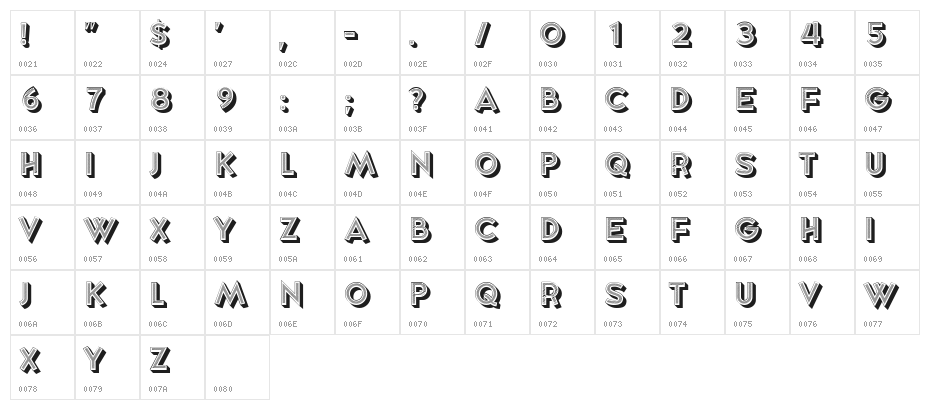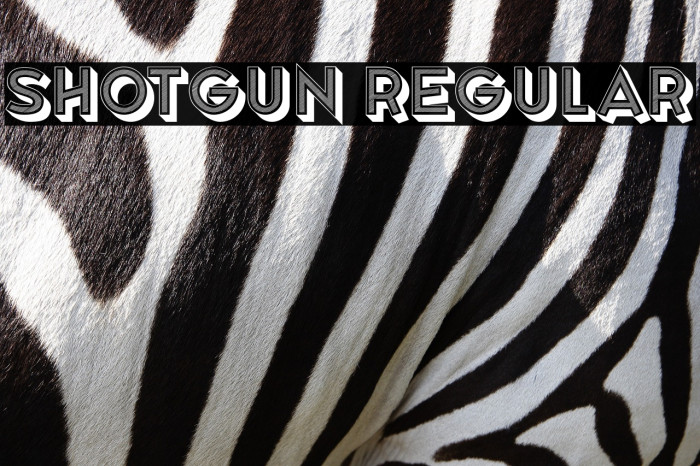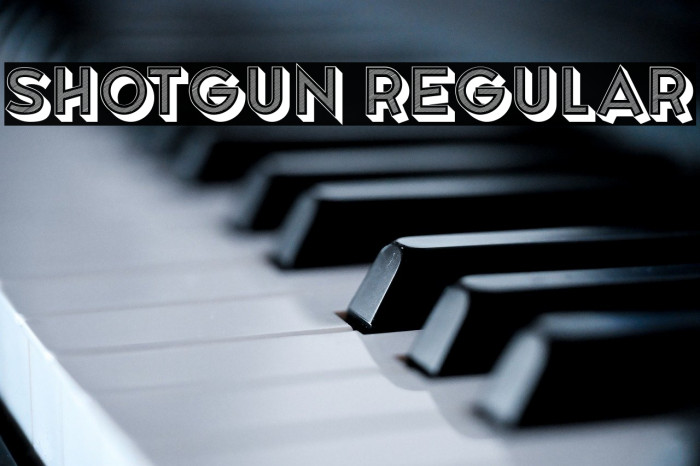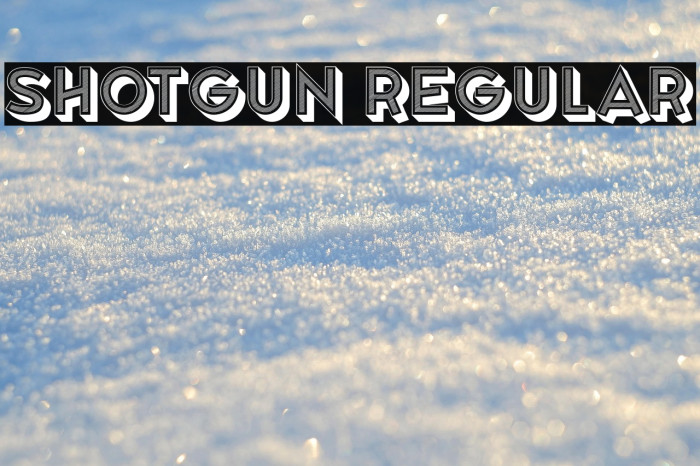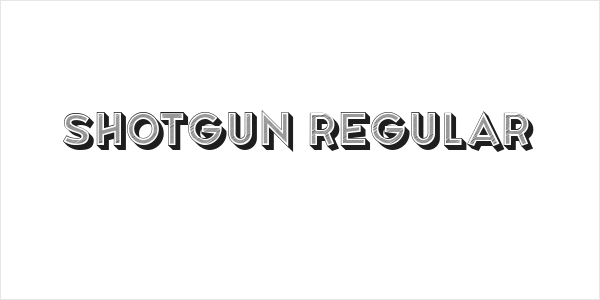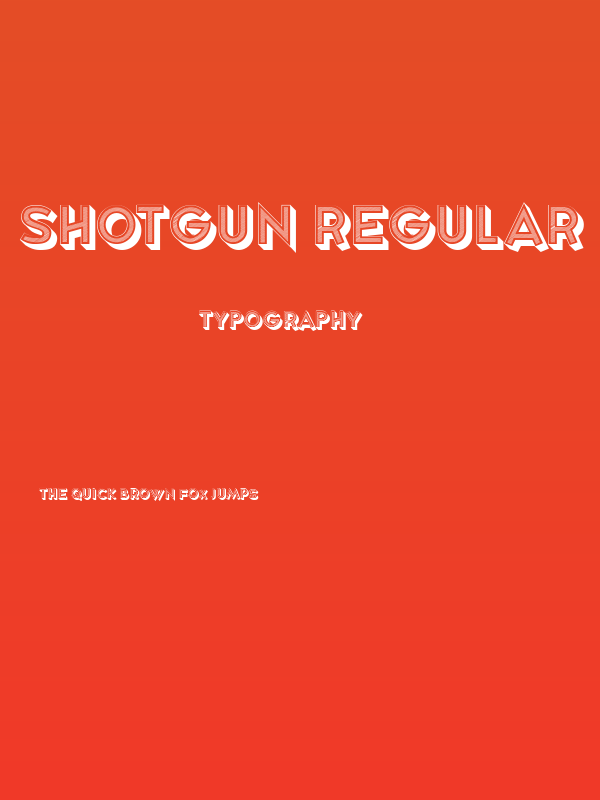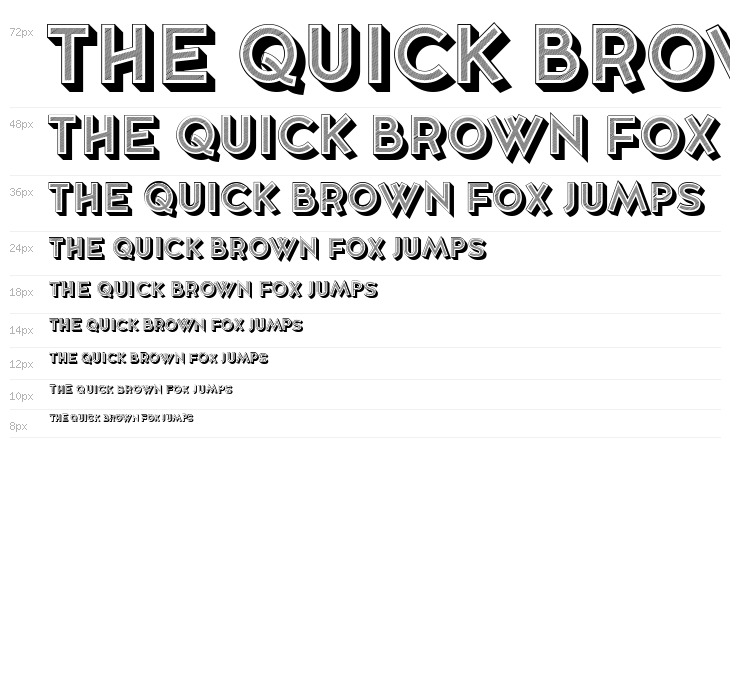
Shotgun Regular Font
Shotgun Regular Description
This font features a bold, three-dimensional style with a strong shadow effect that gives it a striking, impactful appearance. The characters are uppercase and have a geometric structure with clean lines and sharp angles. The shadowing adds depth, making it ideal for attention-grabbing headlines or titles. The font's design is reminiscent of vintage signage or posters, with a modern twist that makes it versatile for various design projects. The numbers and special characters maintain the same bold and shadowed aesthetic, ensuring consistency across all elements.
| Proposed Projects | Ideal for posters, headlines, logos, and any design needing a bold, eye-catching typeface. |